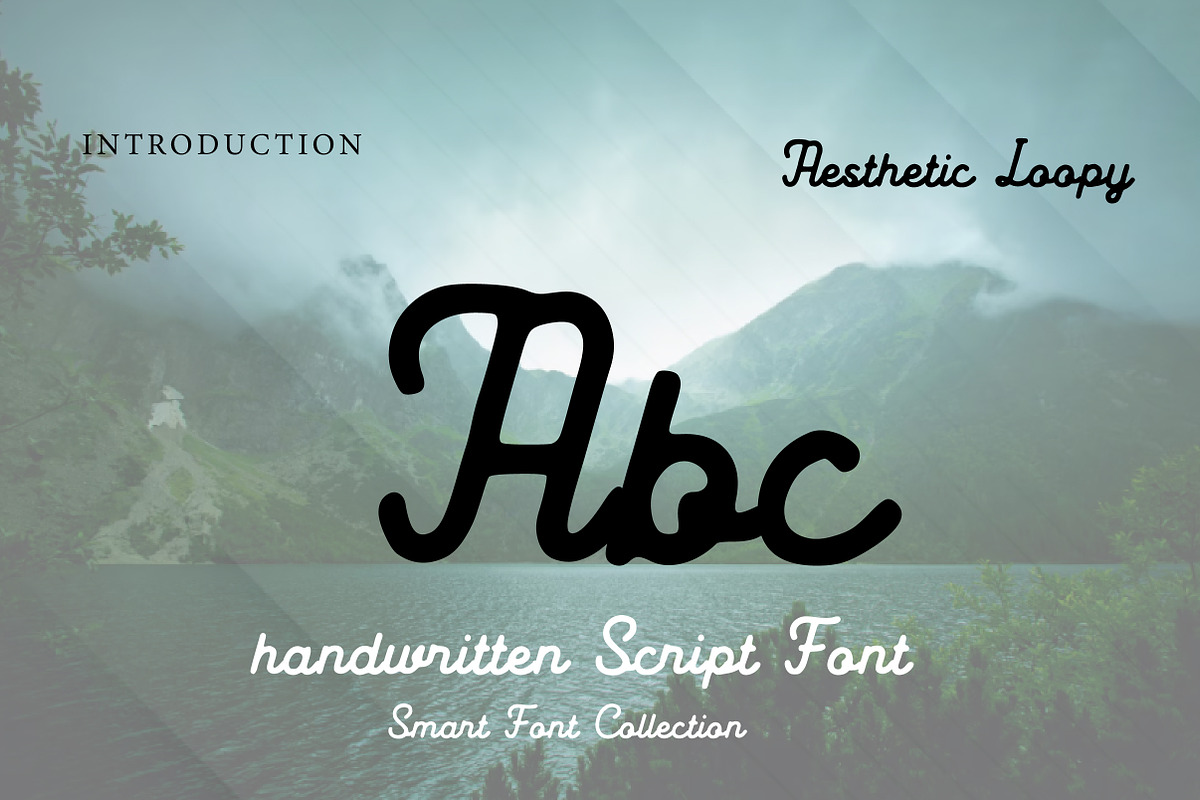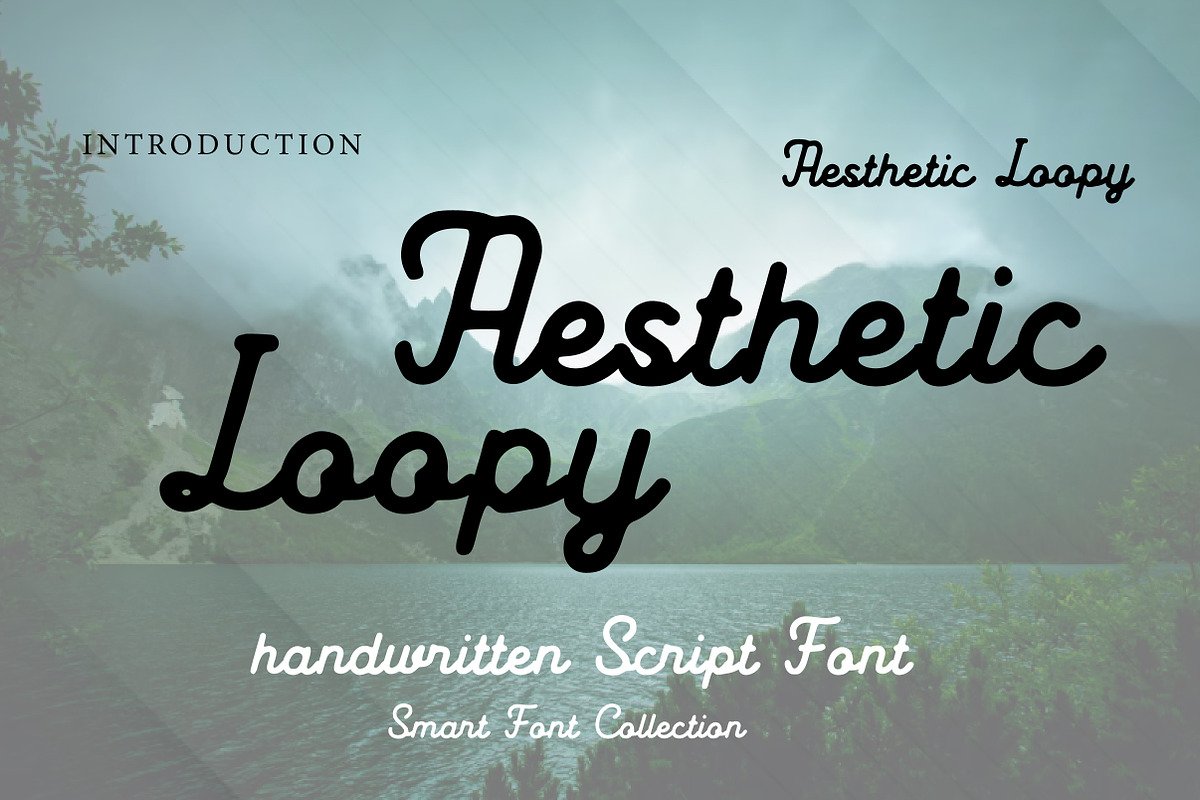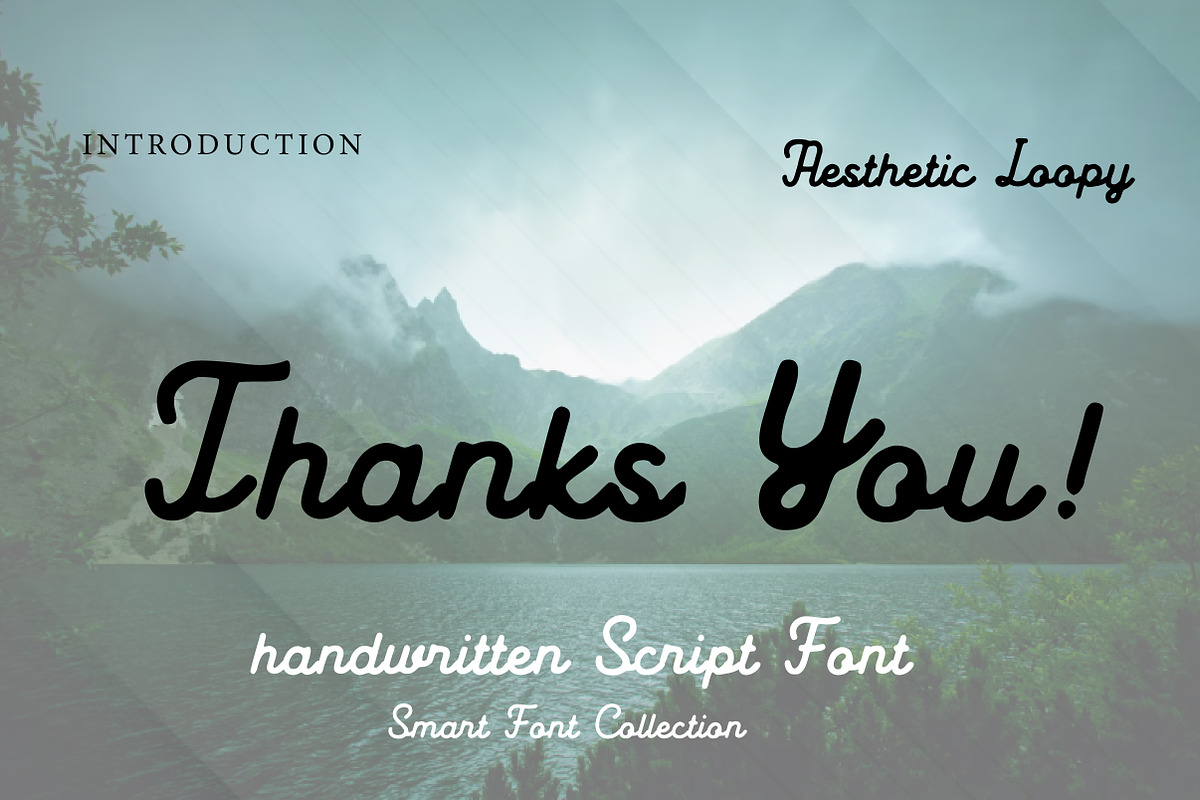
Aesthetic Loopy
Aesthetic Loopy is a bold, smooth, and beautifully connected script font with charming loopy curves and rounded terminals. Designed to bring a playful yet stylish handwritten feel, this font blends modern aesthetics with a soft retro touch. Each letter flows naturally, creating an eye-catching and friendly look that instantly enhances your design.
Perfect for logos, branding, packaging, social media posts, wedding invitations, greeting cards, beauty products, boutique branding, café menus, t-shirt designs, stickers, and more. Its smooth monoline strokes and balanced thickness make it highly versatile for both digital and print projects.
Whether you're creating a trendy Instagram quote, a feminine brand identity, or a standout headline, Aesthetic Loopy adds warmth, personality, and elegance to every design.